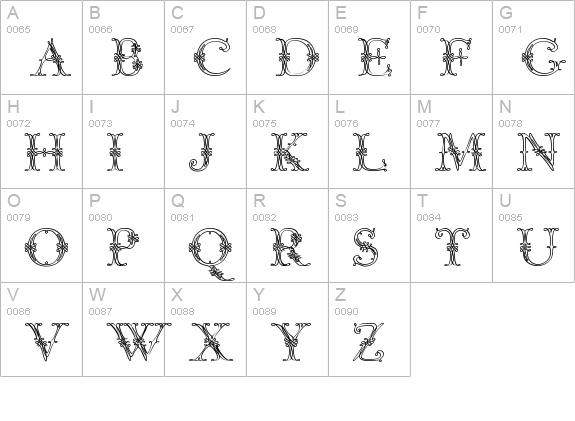
Graceful Ghost font is a stunning typeface that exudes elegance and sophistication. Its delicate curves and graceful lines make it a perfect choice for projects that require a touch of refinement. This font is versatile and can be used for a variety of design purposes, from invitations to logos to branding materials. What makes Graceful Ghost font even more appealing is that it is free to download at FontsMarket.com. This means that you can enhance your projects with this beautiful font without having to spend a penny. Whether you are a professional designer or a hobbyist, Graceful Ghost font is a valuable addition to your font collection. Download it today and add a touch of grace and beauty to your designs.